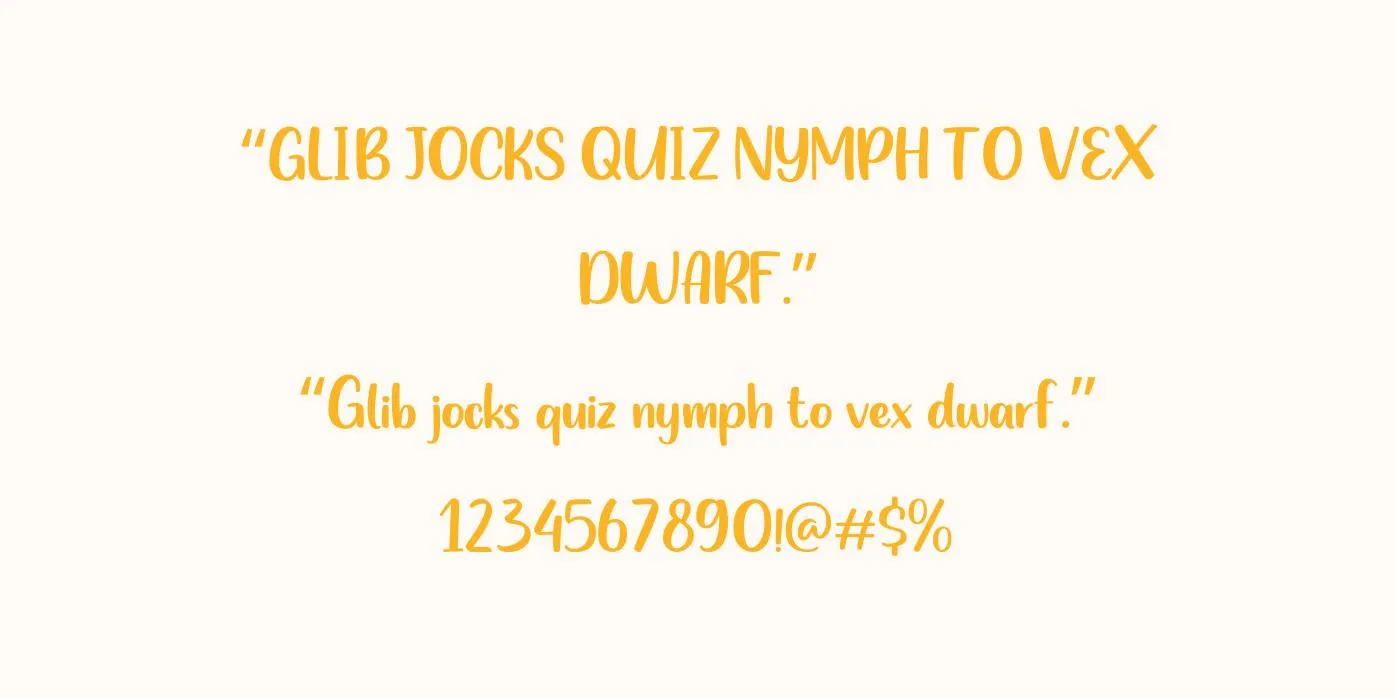
Golden Cheese Font
Golden Cheese Font is a script font that was designed by Diki Hermawan and published by Letterflow Studios. It has a casual, natural, and lovely appearance that looks perfect in logos, posters, wedding cards, etc.
This typeface comes in Regular weight along with TTF and OTF formats. It also contains casual and cute characters in uppercase, lowercase, numbers, punctuations, and a few special characters.
Design Appearance of Golden Cheese Font
Designer Diki Hermawan
Style Script
What type of font is Golden Cheese Font?
This font is a script texture that was designed by Diki Hermawan and published by Letterflow Studios.
What are the characteristics of Golden Cheese Font?
This font comes in script font categories along with solo weight, and it has a casual, natural, and lovely appearance that looks perfect in logos, posters, wedding cards, etc.
Why is the Golden Cheese typeface so popular?
This font has a friendly and natural texture that makes it super cool and lovely in any content and makes it more eye-catching and attention-grabbing.